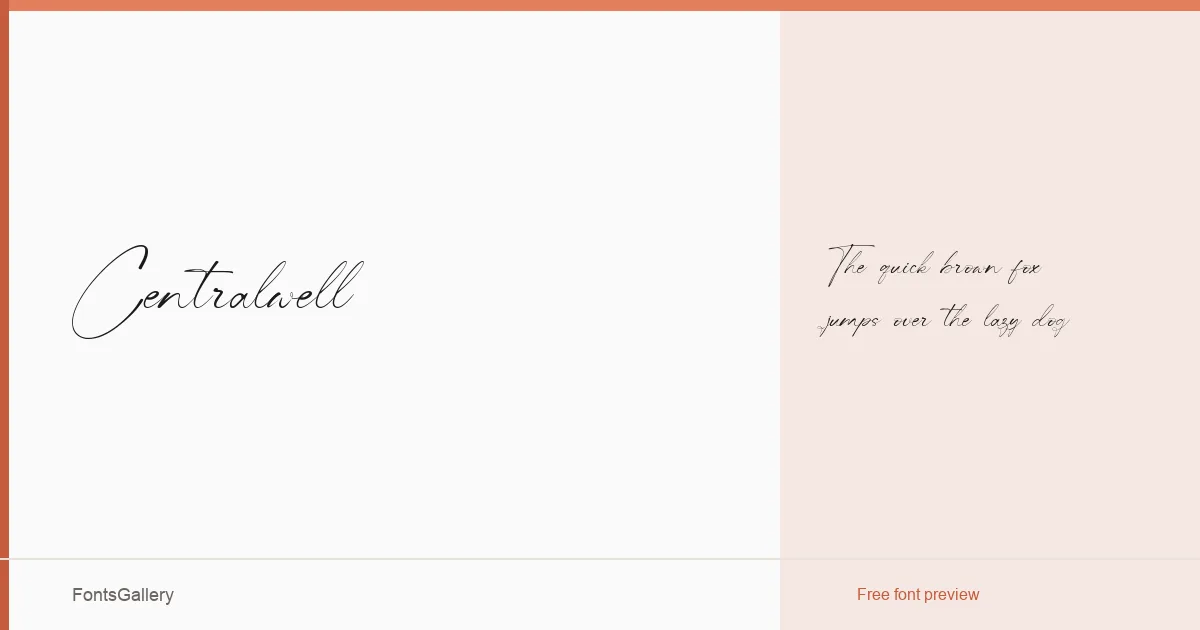
About Centralwell Font
Centralwell is an elegant script typeface crafted by designer Thomas Aradea, bringing a refined sense of luxury and romance to every design it graces. With its classic sensibility and flowing letterforms, it evokes timeless sophistication that feels equally at home in modern and traditional contexts. This typeface is a compelling choice for creatives who want to convey warmth, grace, and distinction in their work.
Centralwell features the graceful, connected strokes characteristic of fine script typography, balanced with a classic elegance that speaks to luxury and romantic sensibility. Each letterform is carefully crafted to flow naturally into the next, creating a sense of fluid continuity and visual harmony. The result is a typeface that feels both refined and inviting, carrying a timeless quality that transcends fleeting design trends.
Centralwell shines in applications that call for elevated aesthetics, making it an excellent choice for logos, wedding stationery, invitation cards, greeting cards, and branding projects. Its romantic and luxurious character lends itself particularly well to wedding-related design work and high-end brand identity. For a balanced typographic pairing, Centralwell pairs beautifully with Aresink or the clean neutrality of Helvetica to create compelling contrast between script and sans-serif styles.